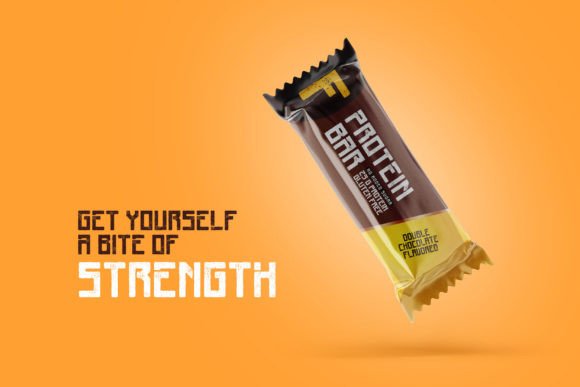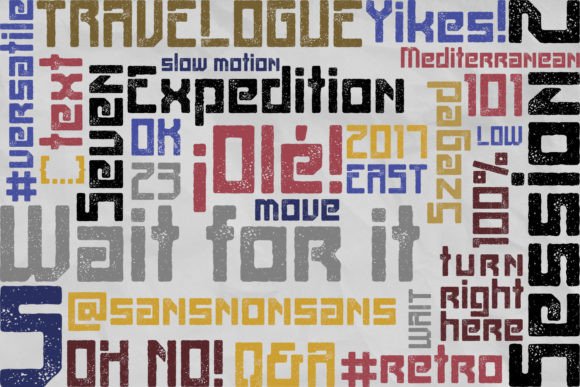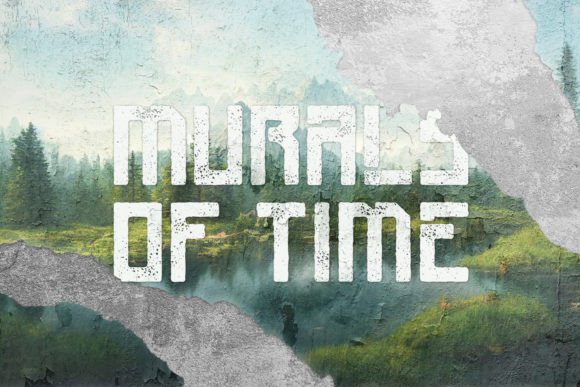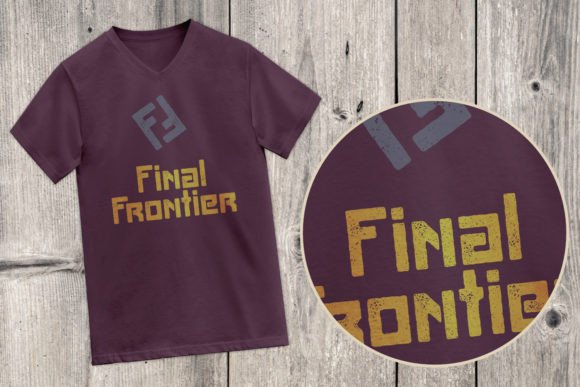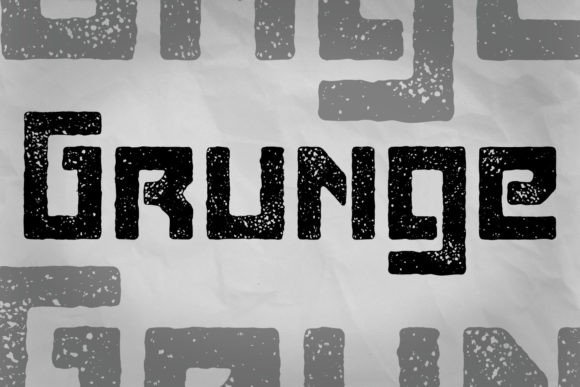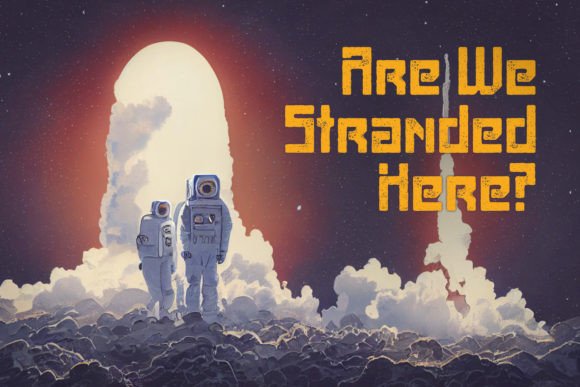
Firmament Grunge: The Ultimate Retro-Futuristic Display Font for Creative Projects
Are you a designer or crafter looking for a font that can add a touch of retro-futurism to your creative projects? Look no further than Firmament Grunge, a cool and stylish display font that’s perfect for a wide range of applications. In this article, we’ll take a closer look at Firmament Grunge and explore its features, uses, and benefits.
What is Firmament Grunge?
Firmament Grunge is a retro-futuristic display font that’s designed to evoke the nostalgia of the past while still feeling modern and fresh. With its unique blend of classic and futuristic elements, this font is sure to grab attention and add a touch of personality to any design project. Whether you’re working on a logo, headline, or entire brand identity, Firmament Grunge is the perfect choice.
Key Features of Firmament Grunge
So what makes Firmament Grunge so special? Here are just a few of its key features:
- Retro-Futuristic Style: Firmament Grunge has a unique retro-futuristic style that’s perfect for designers who want to add a touch of nostalgia to their work.
- Display Font: This font is designed specifically for display use, making it perfect for headlines, logotypes, and other large-format text.
- Versatile: Firmament Grunge can be used for a wide range of applications, from corporate identity and brand identity to posters, music, movies, games, and more.
- Easy to Read: Despite its unique style, Firmament Grunge is still easy to read, even at smaller sizes.
Uses for Firmament Grunge
So what can you use Firmament Grunge for? The possibilities are endless! Here are just a few ideas to get you started:
- Logotypes and Brand Identity: Use Firmament Grunge to create a unique and memorable logo for your brand.
- Headlines and Posters: Add a touch of retro-futurism to your headlines and posters with Firmament Grunge.
- Apparel Industry: Use Firmament Grunge to create eye-catching text for t-shirts, hoodies, and other apparel.
- Music and Movies: Add a touch of nostalgia to your music or movie branding with Firmament Grunge.
- Games and Magazines: Use Firmament Grunge to create bold and eye-catching headlines for your game or magazine.
- Websites and Social Media: Use Firmament Grunge to add a touch of personality to your website or social media profiles.
Benefits of Using Firmament Grunge
So why should you choose Firmament Grunge for your next design project? Here are just a few benefits:
- Unique Style: Firmament Grunge has a unique and eye-catching style that’s sure to grab attention.
- Versatility: This font can be used for a wide range of applications, making it a great addition to any designer’s toolkit.
- High-Quality: Firmament Grunge is a high-quality font that’s designed to look great at any size.
In conclusion, Firmament Grunge is a cool and stylish retro-futuristic display font that’s perfect for designers and crafters who want to add a touch of nostalgia to their work. With its unique style, versatility, and ease of use, Firmament Grunge is a great choice for any design project. Whether you’re working on a logo, headline, or entire brand identity, Firmament Grunge is sure to impress.